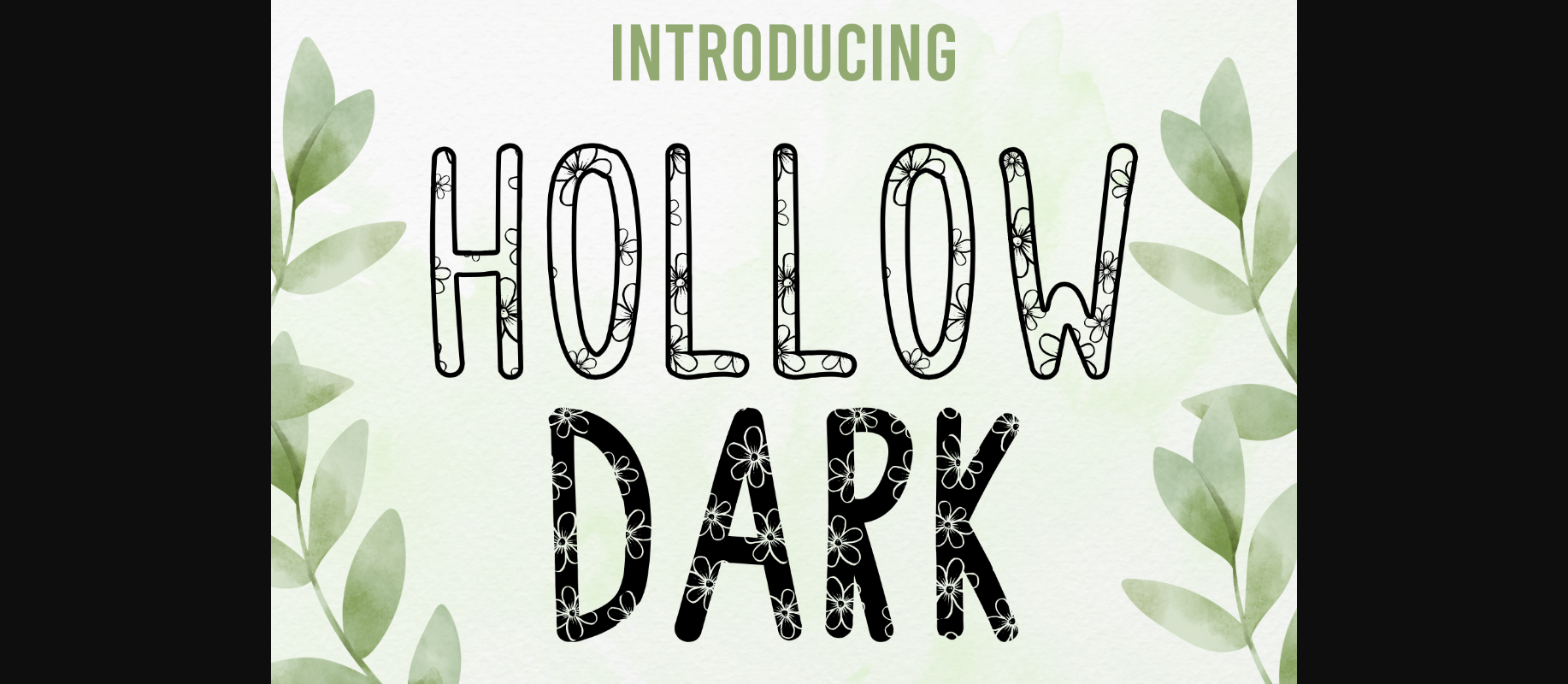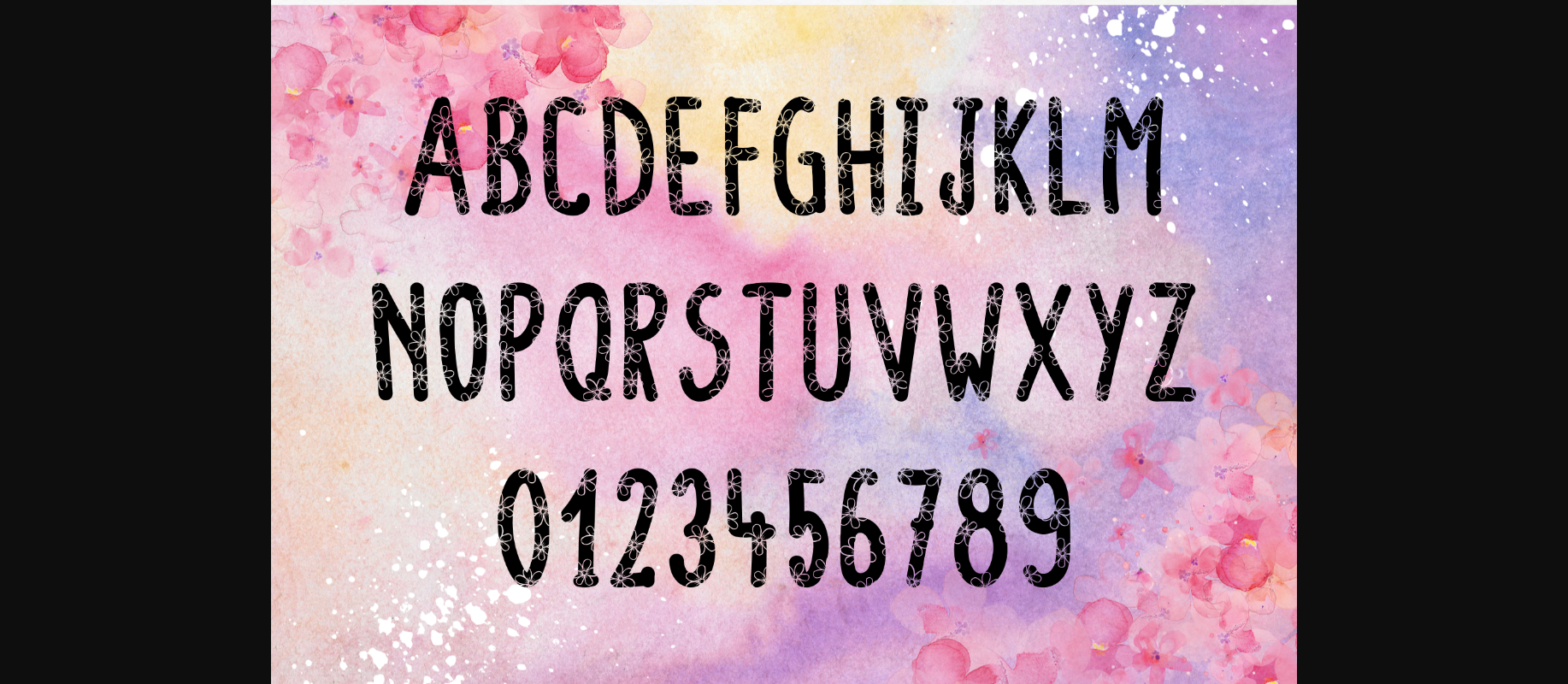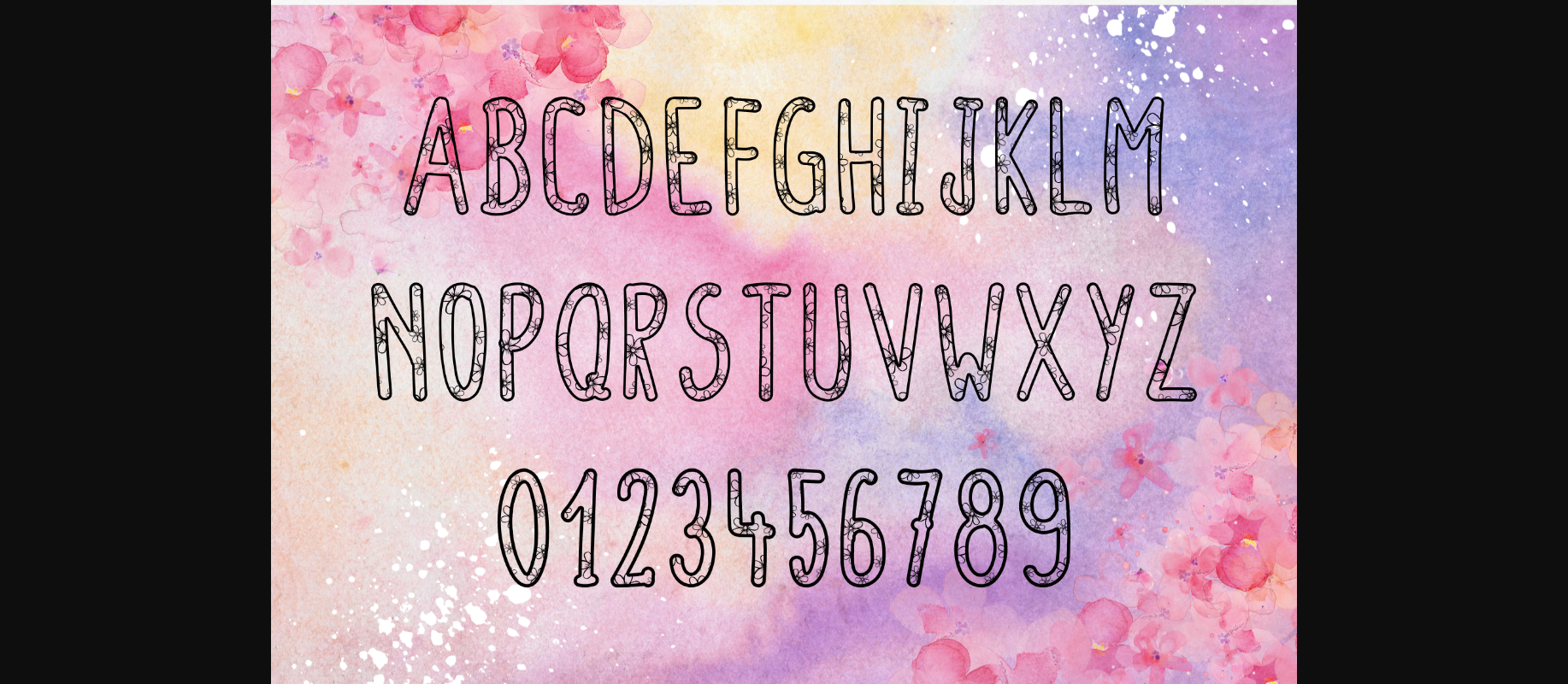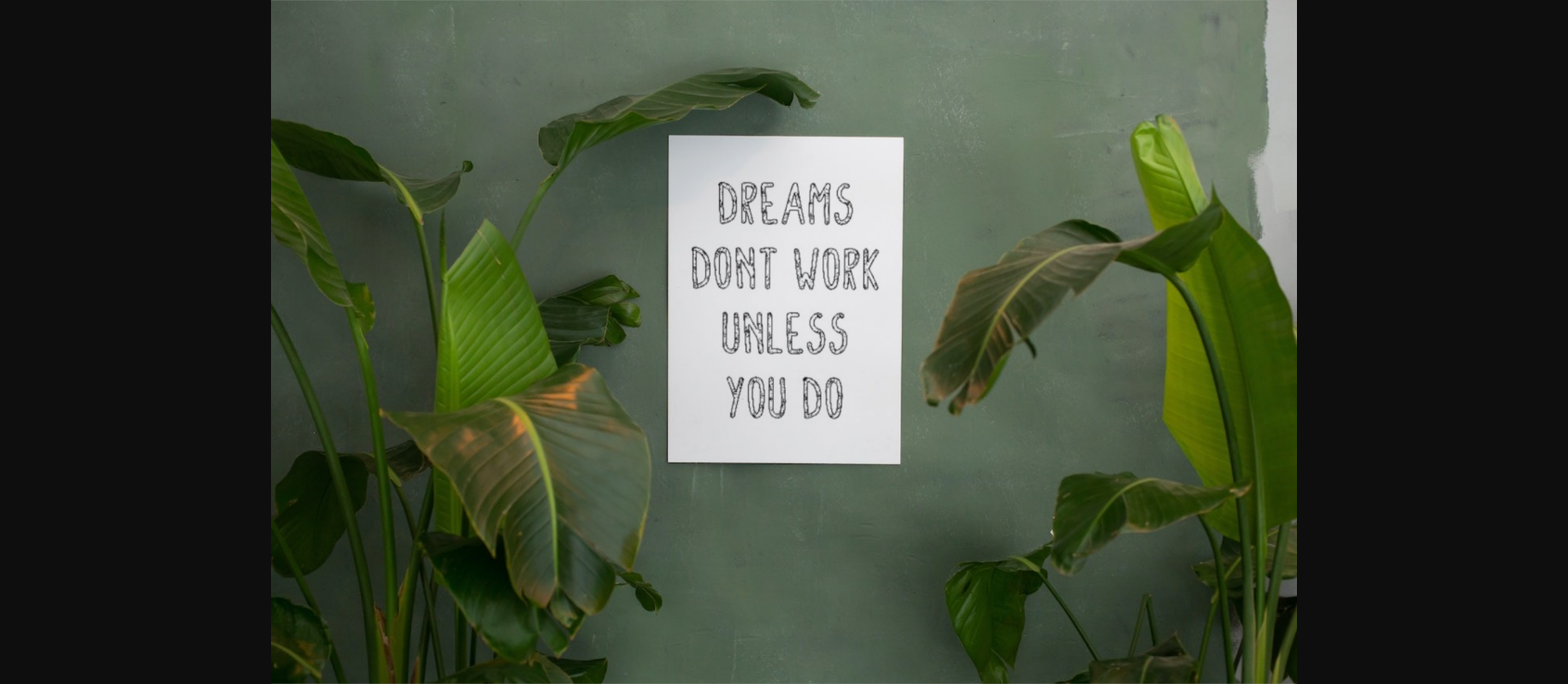
Flowers Hollow Dark Font
About Flowers Hollow Dark Font
Introducing “Flowers Hollow” and “Flowers Dark” Fonts
Are you tired of ordinary, run-of-the-mill fonts? Do you crave something truly unique and captivating for your design projects? Look no further! We proudly present to you the “Flowers Hollow” and “Flowers Dark” fonts – a stunning duo that will take your typography game to the next level.
? Flowers Hollow ?
Embrace Elegance and Delicacy
Flowers Hollow is a font that encapsulates the beauty of nature with its intricate, hollow design. This font variation brings a sense of airiness and elegance to your projects, making it perfect for invitations, greeting cards, and any design where you want to add a touch of refinement. Let your creativity flourish as you use Flowers Hollow to express your artistic vision.
Key Features:
Elegant and delicate hollow design.
Perfect for invitations, wedding stationery, and feminine branding.
Uplift your designs with a touch of natural beauty.
? Flowers Dark ?
Embrace Mystery and Depth
Flowers Dark, the twin of Flowers Hollow, is the embodiment of mystery and depth. With its bold, dark design, this font will add a sense of intrigue and sophistication to your projects. Whether you’re working on posters, book covers, or logo designs, Flowers Dark will leave a lasting impression that is both captivating and unforgettable.
Key Features:
Bold and impactful dark design.
Ideal for posters, book covers, and modern branding.
Make a statement with an air of mystery.
? Why Choose Flowers Fonts? ?
Versatile: Flowers Hollow and Flowers Dark complement each other perfectly, allowing you to create harmonious design combinations or striking contrasts.
Unique: Stand out from the crowd with fonts inspired by the beauty of nature, adding an extra layer of artistry to your work.
Professional Quality: Crafted with precision and attention to detail, ensuring high-quality results for both print and digital projects.
Endless Possibilities: Use them for a wide range of creative projects, from branding to social media, invitations, posters, and more.